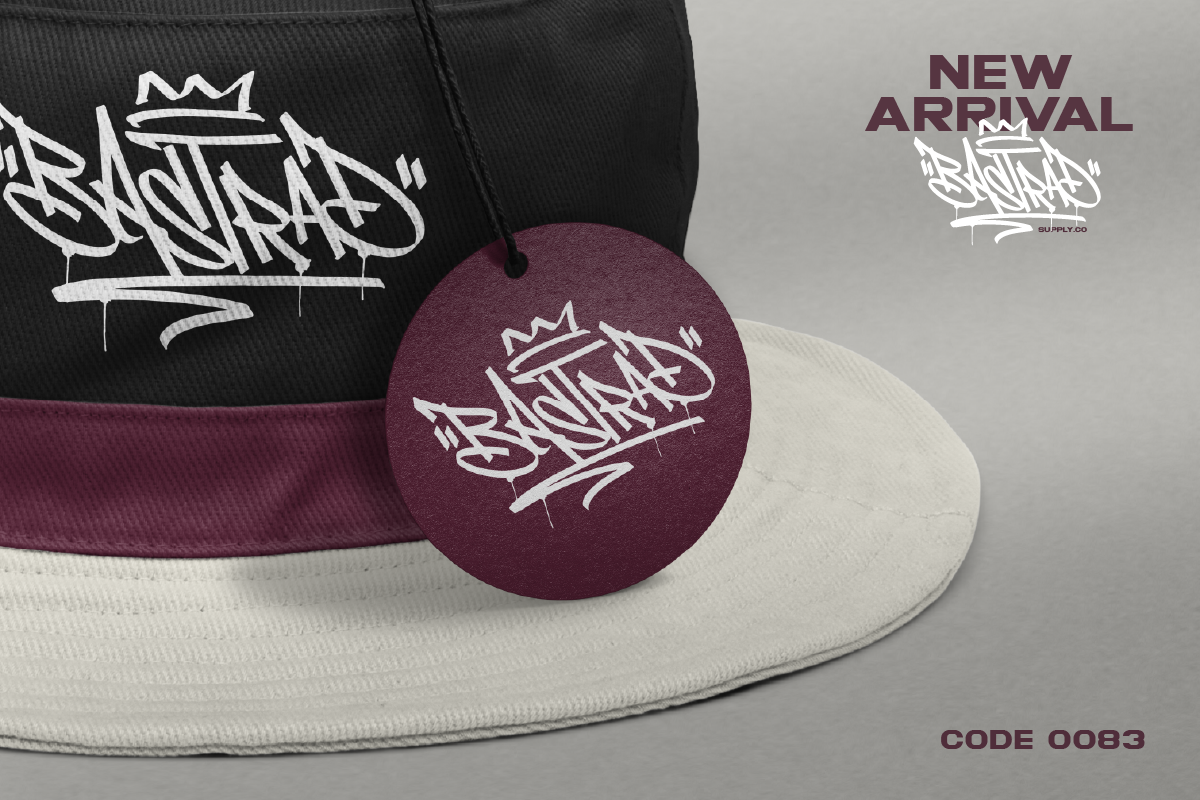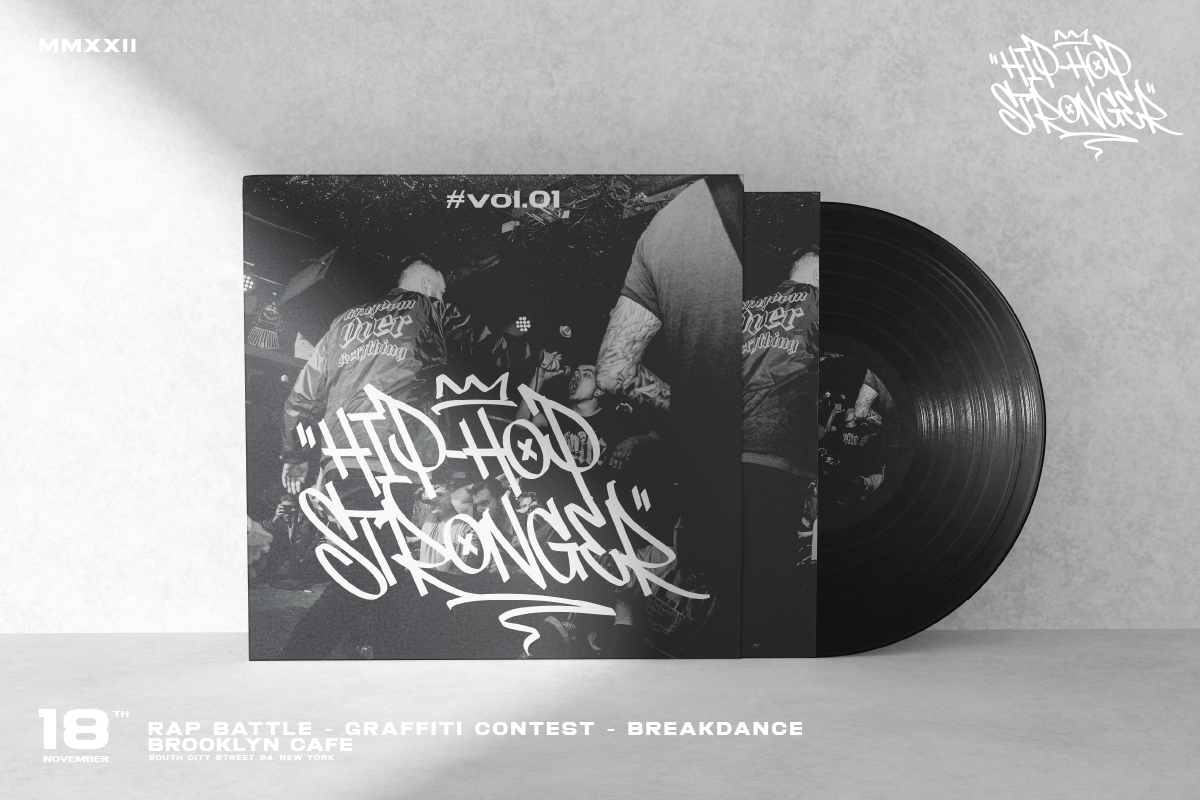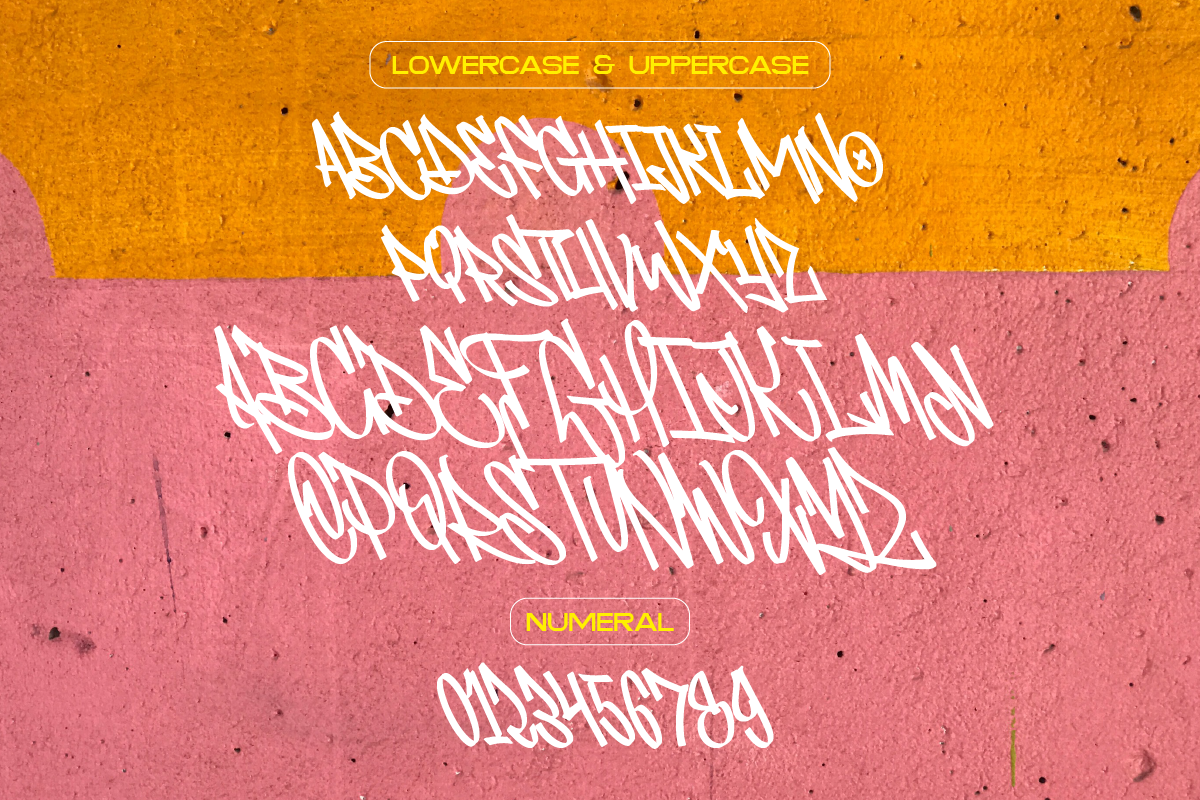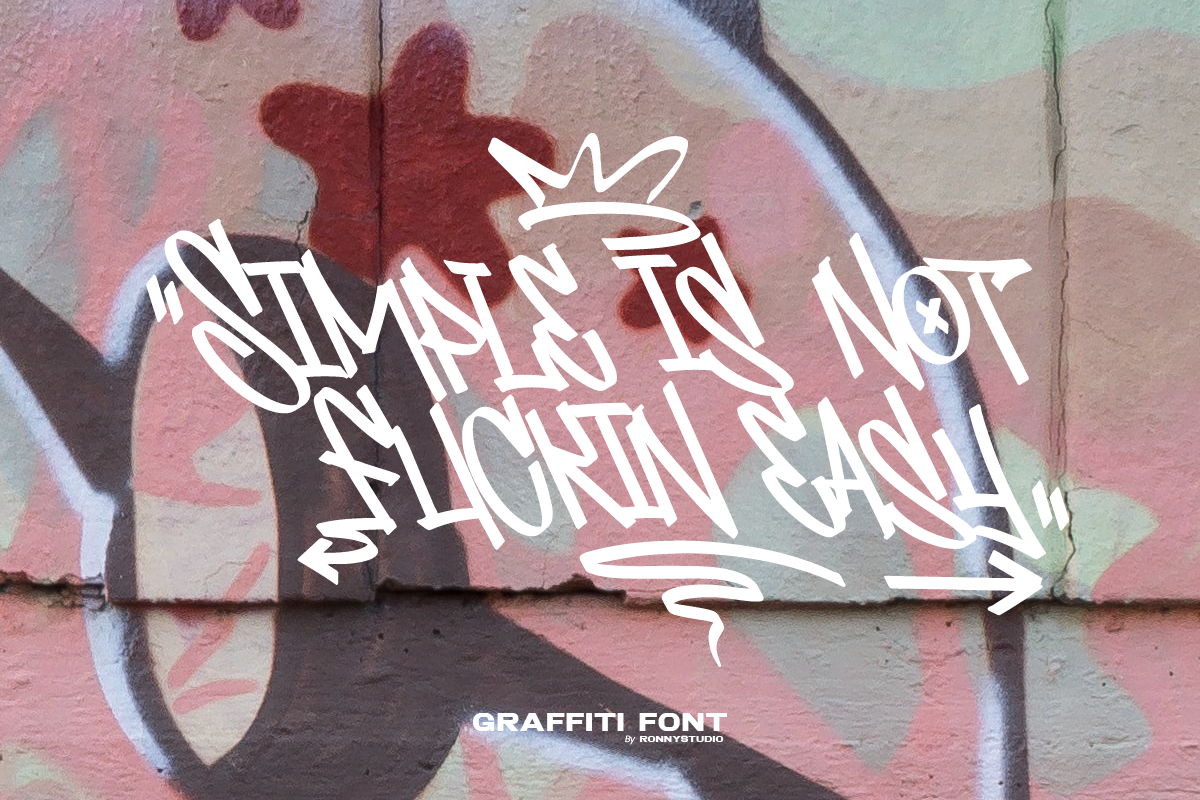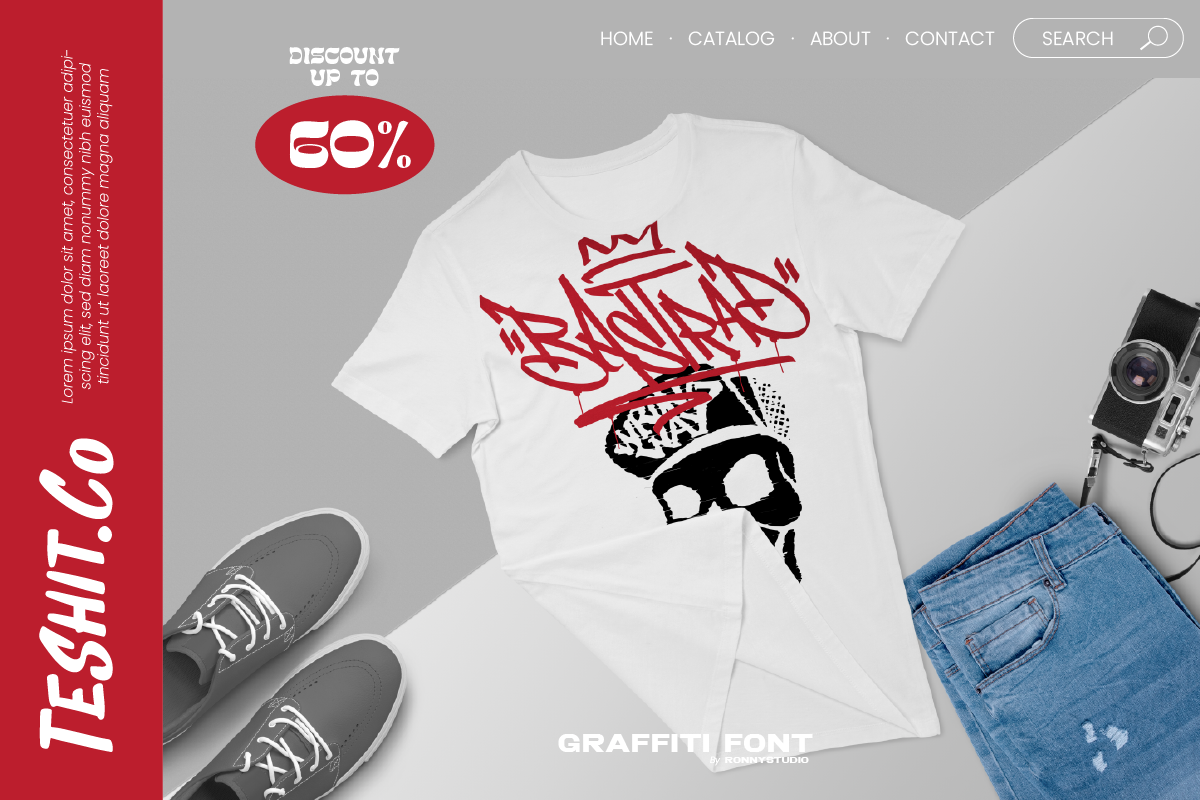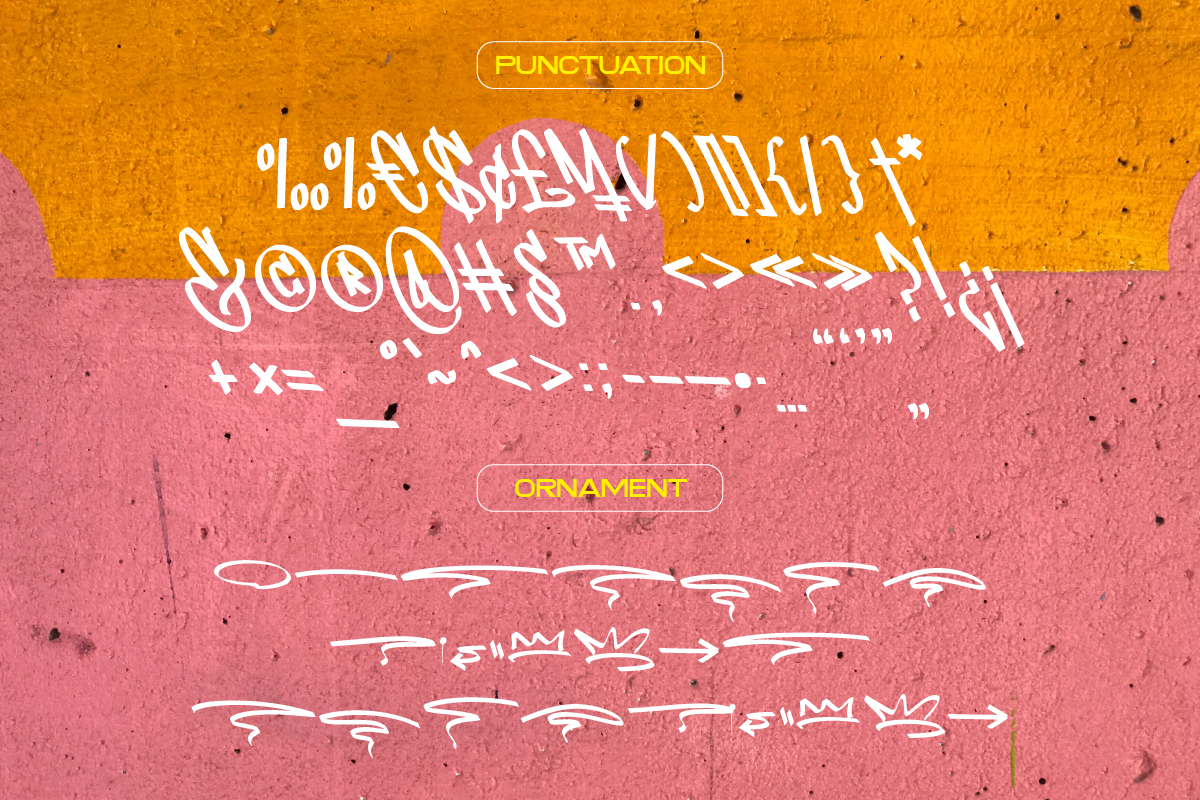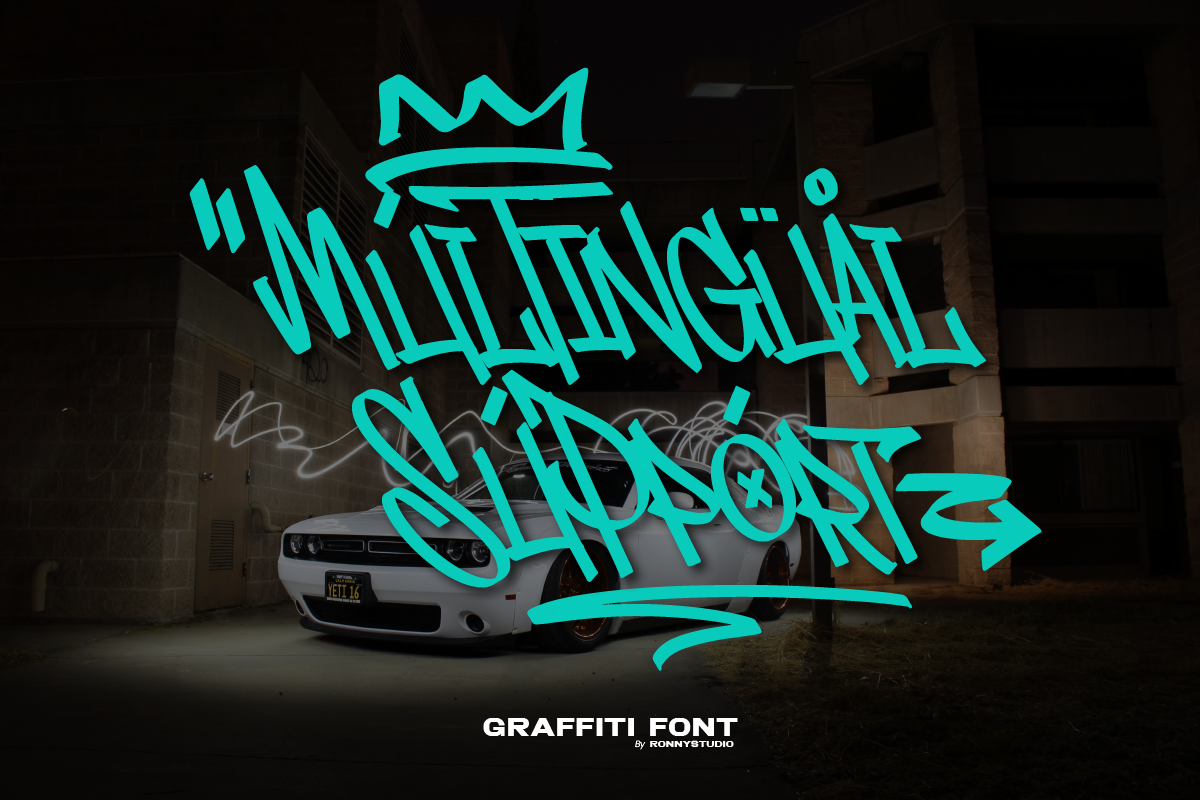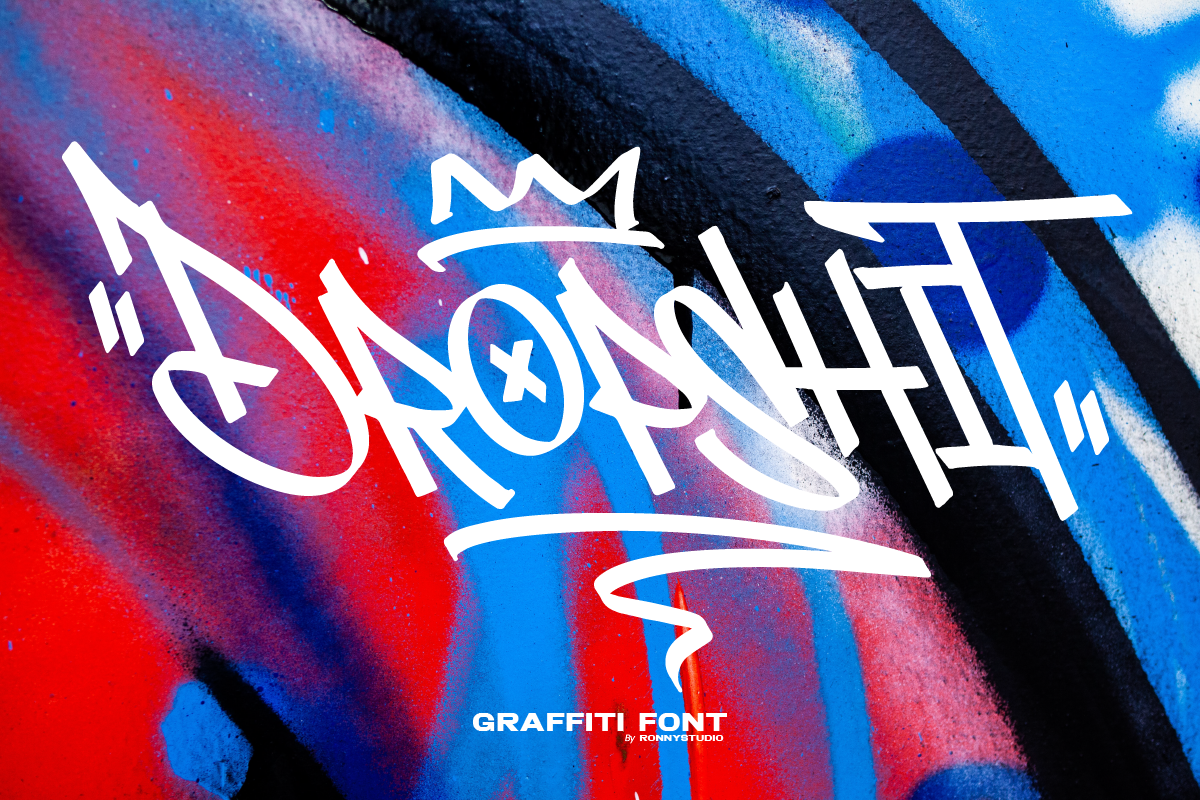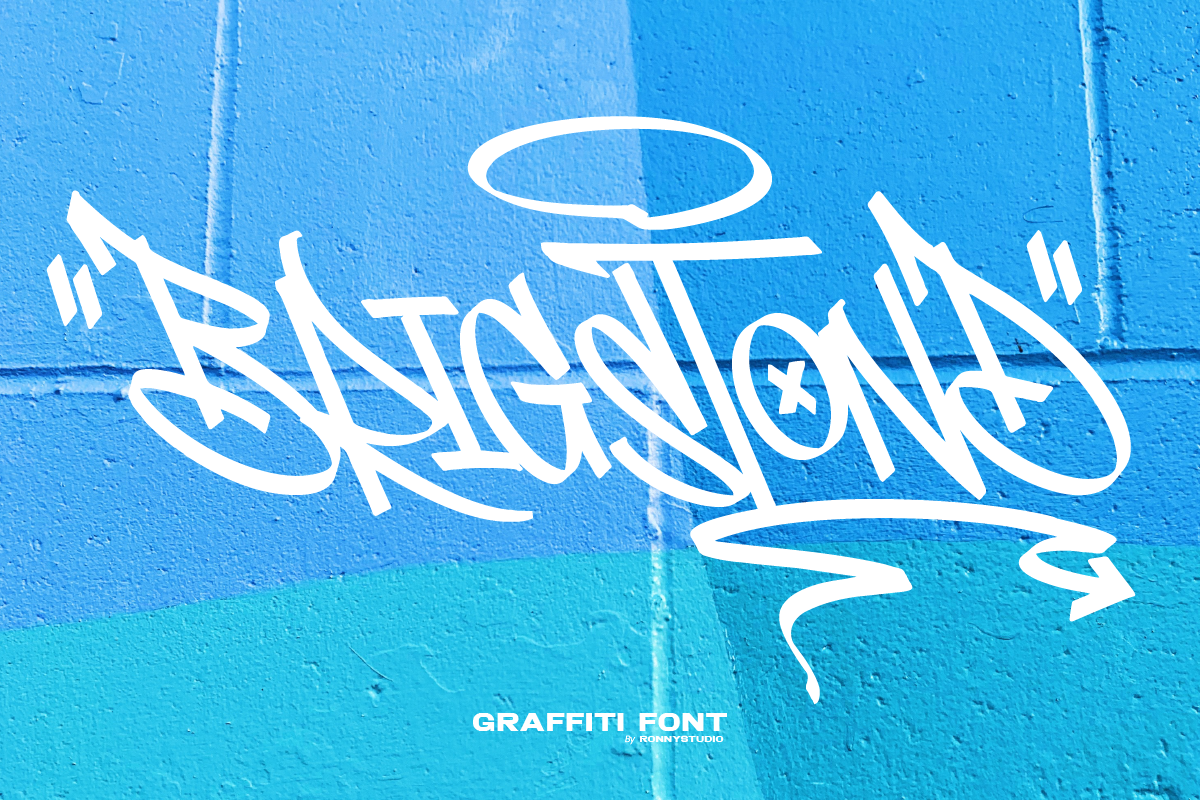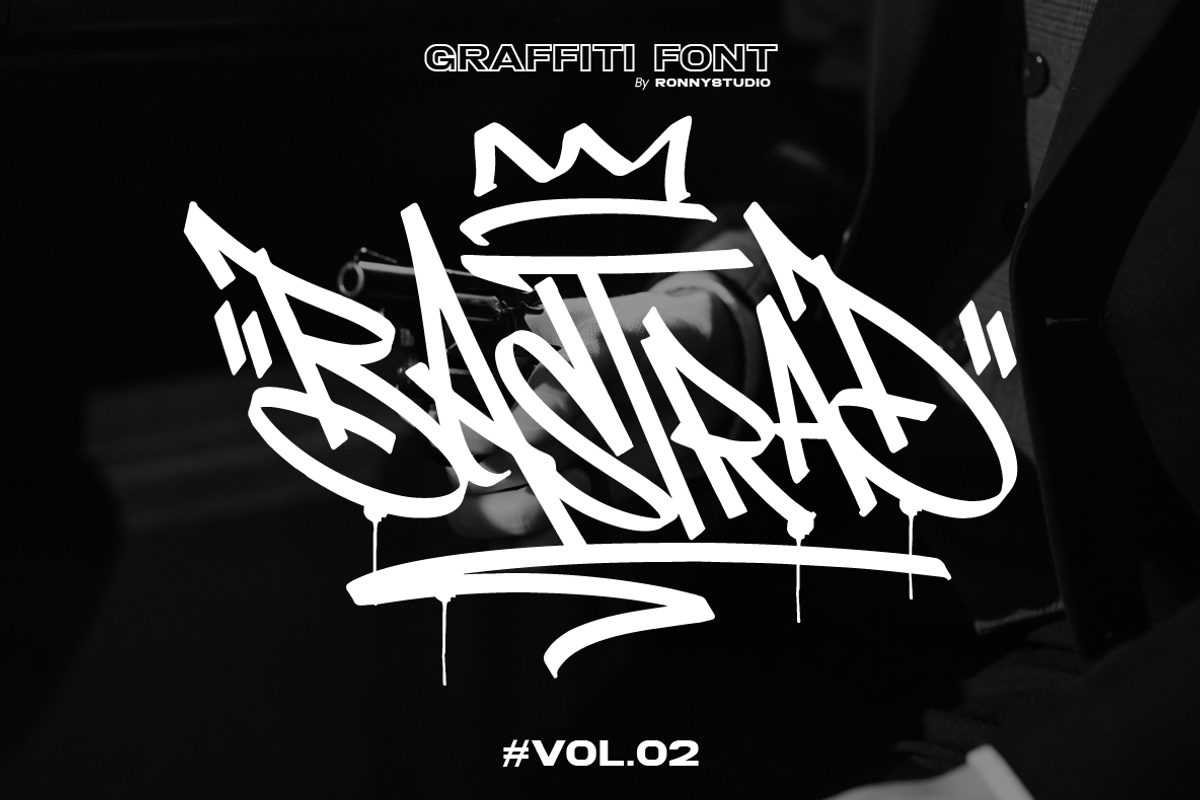
Bastrad Vol.02 Graffiti Font
Bastrad vol.2 is the second version of the Bastrad font. Inspired by the realistic calligraphy marking style in many big cities. This style is bolder and easier to read, perfect for your "street art" design style. I put a real graffiti experience into a computer font, I think it will be different to other fonts if you can feel it, because I've been drawing graffiti, marking and puking since I was in high school.
Bastrad Features :
- All Caps
- Swash / Ornament